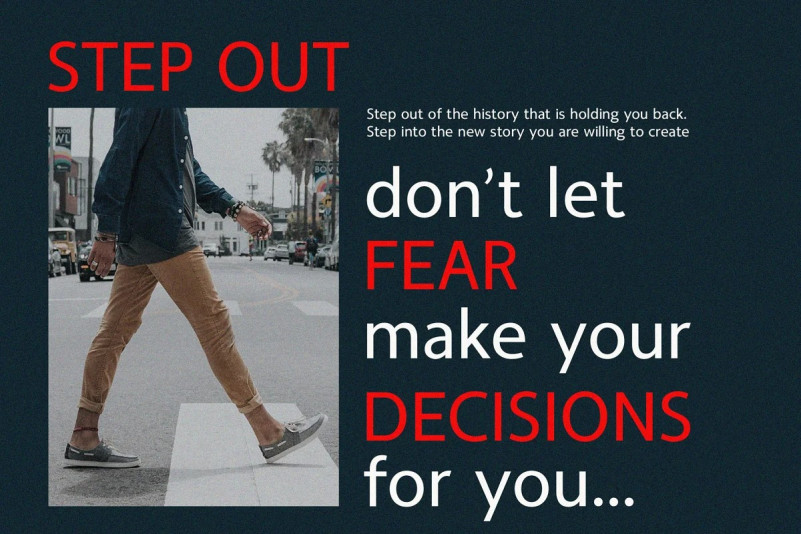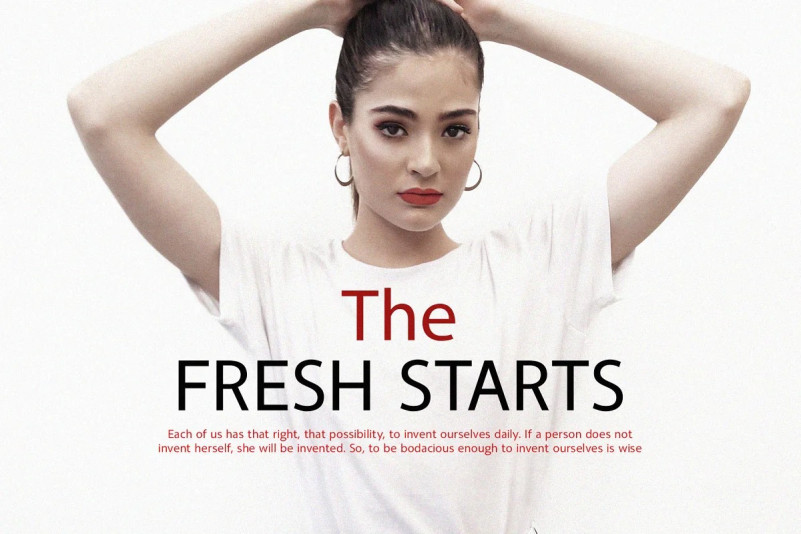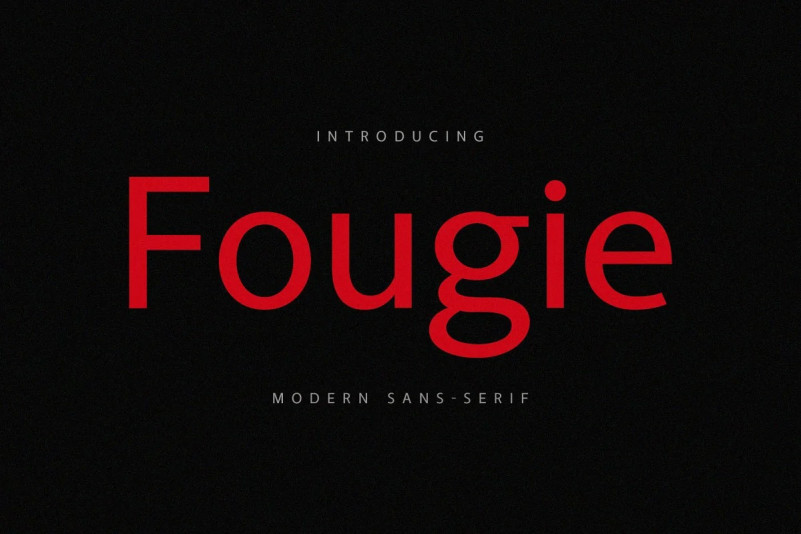
Fougie Font
Fougie Font is a classy, modern sans font. This font is modern and elegant and works great for website, logos, magazines, social media. This font it’s matched and ready to be used together for your next design! For those of you who need a touch of elegance, stylish, classy, chic and modernity for your designs, this font is made for you!